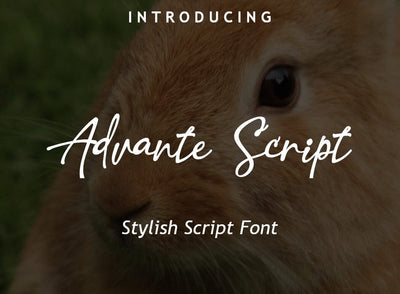
Advante Script Font
Advante Script is a stylized handwritten script font with artistically shaped characters.
Advante Script is great and excellent choice for quotes, logotypes, branding, product packaging, wedding invites and many more.